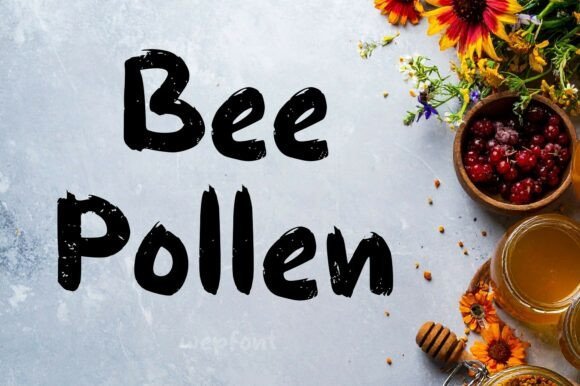
A Friendly Face for Your Brand: Introducing Bee Pollen Font
Have you ever stumbled upon a font that instantly makes you feel at ease, like you’re browsing through a charming farmers’ market on a sunny Saturday morning? That’s exactly what happens when you meet the Bee Pollen Font. This natural and wholesome script display font is designed to evoke a sense of friendliness, organic simplicity, and trustworthiness.
Bee Pollen Font is perfect for designers looking to create an authentic and trustworthy feel for their natural products, health foods, eco-friendly brands, or farmers’ markets. Its clear, legible, and slightly rounded letterforms make it an ideal choice for designs that require a down-to-earth and inviting vibe. Whether you’re a seasoned designer or just starting out, Bee Pollen Font is a valuable addition to your toolkit.
Bee Pollen Font Key Features
- Font Family: Bee Pollen Font is a unique, hand-drawn typeface with a natural and organic feel.
- Character Set: The font includes a comprehensive set of characters, including uppercase and lowercase letters, numbers, punctuation marks, and special characters.
- Unique Characteristics: Bee Pollen Font features a distinctive, hand-drawn style with subtle texture and imperfections, giving it a natural and earthy feel.
Bee Pollen Font Review
As a designer, I was excited to dive into the Bee Pollen Font and see if it lived up to its name. Here’s my honest review:
- The Bee Pollen Font has a unique, hand-drawn feel that adds a touch of whimsy to any design project.
- The font is highly customizable, with a wide range of weights and styles to choose from.
- The Bee Pollen Font is highly legible, even at small font sizes, making it a great choice for body text.
- The Bee Pollen Font can be quite ornate, which may not be suitable for projects that require a more straightforward, modern look.
- The font’s high customizability can also be a double-edged sword, as it can be overwhelming to navigate the various options.
- The Bee Pollen Font may not be the best choice for projects that require a lot of math or technical writing, as the font’s unique feel can make it difficult to read.
The Bee Pollen Font is a unique and charming addition to any design project. While it may not be the best choice for every project, it’s a great option for those looking to add a touch of personality and whimsy to their designs.
- Use Bee Pollen Font for headings and titles to add a touch of elegance.
- Combine Bee Pollen Font with other fonts for a unique and eye-catching look.
- Use Bee Pollen Font for custom typography and creative designs.
- Use Bee Pollen Font for headings and titles to add a touch of professionalism.
- Combine Bee Pollen Font with other fonts for a unique and cohesive look.
Playfair Display is an elegant, high-end serif font suitable for luxury brands and high-end products. It features intricate details and a classic feel, making it perfect for formal invitations, wedding stationery, and premium packaging.
Compared to Bee Pollen Font, Playfair Display has a more formal and sophisticated feel, while Bee Pollen Font has a more rustic and natural vibe.
Carolyna Pro is a modern, elegant sans-serif font ideal for fashion, beauty, and lifestyle brands. It features clean lines, subtle curves, and a touch of sophistication, making it suitable for high-end product labels, fashion magazines, and luxury websites.
Compared to Bee Pollen Font, Carolyna Pro is more modern and sleek, while Bee Pollen Font has a more organic and natural feel.
Didot is a luxurious, high-end serif font perfect for premium products, high-end packaging, and luxury brands. It features elegant lines, refined details, and a classic feel, making it suitable for champagne labels, luxury watches, and high-end fashion brands.